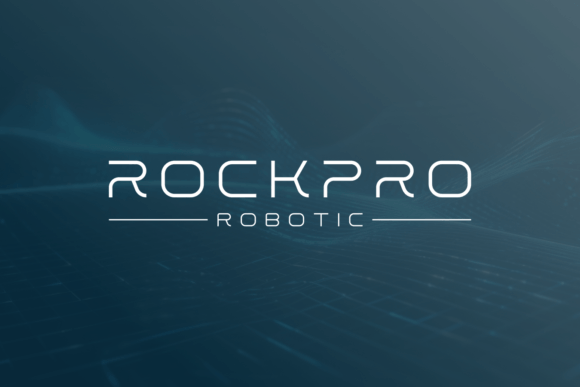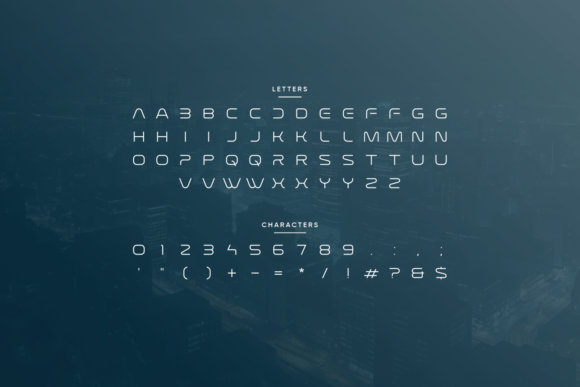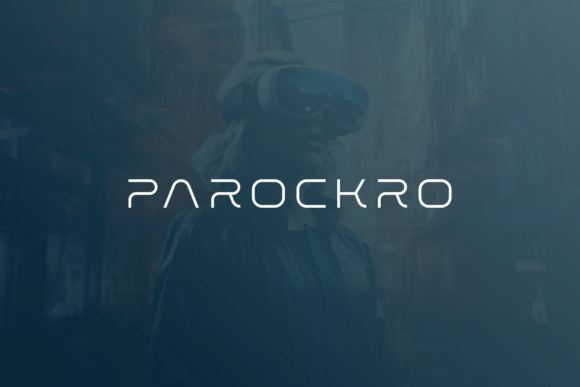
Introduction to Ropacron Font
Have you ever stared at a blank canvas, eager to bring a new design to life, only to be stuck on the perfect font? That’s where the Ropacron Font comes in – a sleek and modern display font that’s sure to elevate your creative project. With its high tech theme and all-cap style, this font is perfect for designers looking to add a touch of futurism to their work.
As a valuable design resource, the Ropacron Font offers a high-quality, free download that’s ideal for writing titles, web designs, logos, and branding. Its thin and light shape makes it look dynamic and flexible, while rounded corners add a touch of softness. Whether you’re working on a business card, brochure, or website, the Ropacron Font is sure to give your design a unique and modern touch.
Key Features of Ropacron Font
- High-quality, professional font design perfect for creative projects requiring a unique touch.
- Unique, modern design that adds a touch of sophistication to any creative project.
Honest Review: Ropacron Font
I recently stumbled upon the Ropacron Font and I’m excited to share my thoughts on this design resource. As a designer, I’m always on the lookout for high-quality fonts that can elevate my creative projects.
What works well: ✨ The Ropacron Font is incredibly versatile, with a wide range of weights and styles to choose from. It’s perfect for designers who want to create a consistent look across their branding and marketing materials. The font also comes with a transparent background, making it easy to use on any design platform.
- High-quality design that’s sure to impress
- Perfect for creative projects, including logos, posters, and business cards
Any limitations: ⚠️ While the Ropacron Font is a great resource, it may not be suitable for designers who need a font with advanced typographic features. Additionally, the font may not be as customizable as some other design resources.
Overall impression: I’m really impressed with the Ropacron Font. It’s a high-quality design resource that’s perfect for designers who want to create professional-looking materials without breaking the bank. I’d definitely recommend it to anyone looking for a reliable font for their creative projects.
Experiment with different font sizes and styles to create visual interest in your design. Use the Ropacron Font in conjunction with other design elements, such as images and graphics, to create a cohesive and engaging design. Don’t be afraid to try new and creative ways to use the Ropacron Font in your project.
The Ropacron Font is a versatile design resource that can be used in a variety of creative projects, including business cards, brochures, and social media graphics. Its high quality and transparent background make it an excellent choice for any design project that requires a professional and polished look.